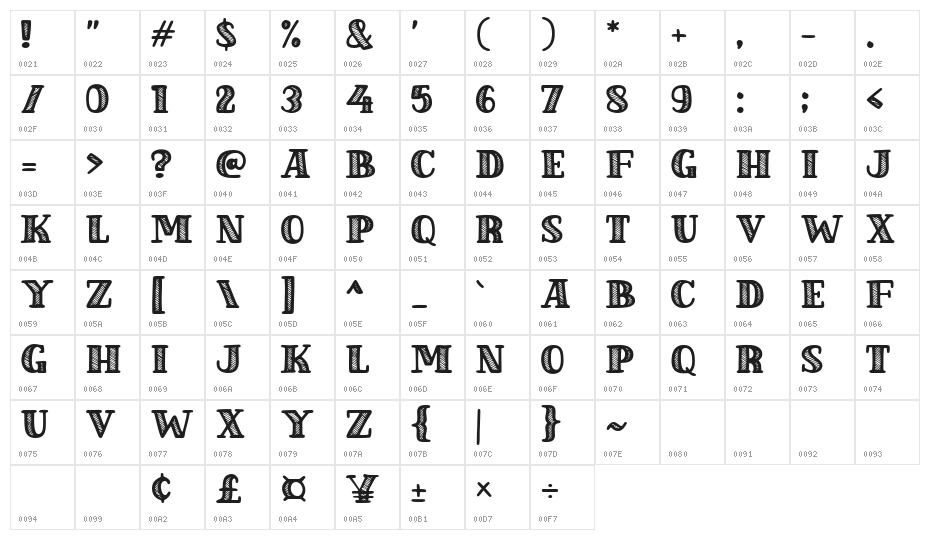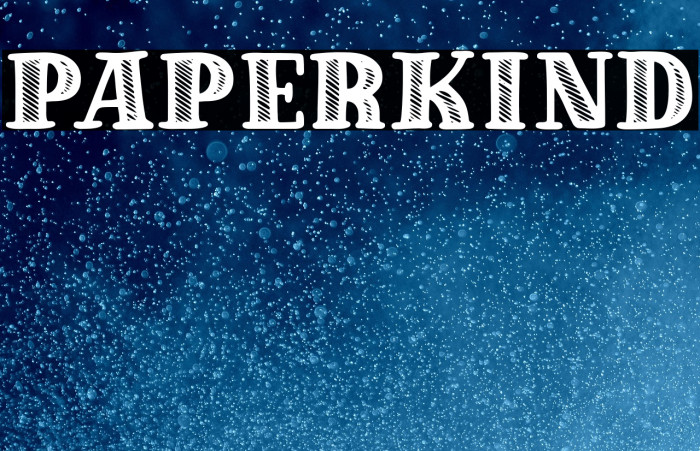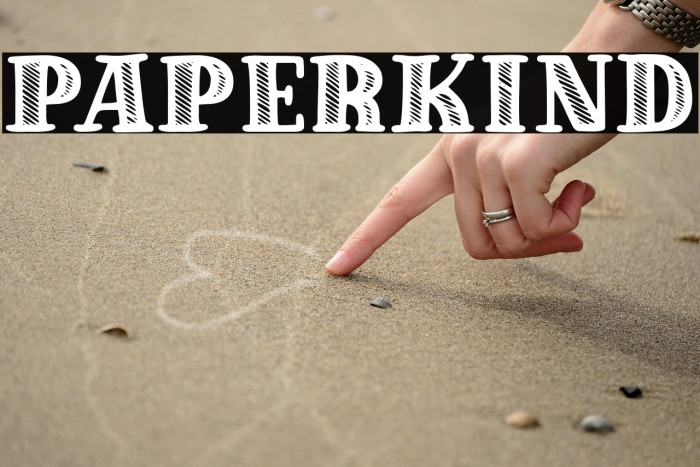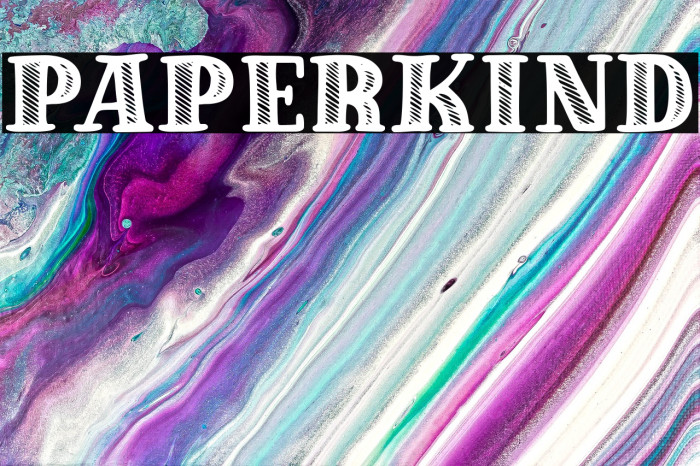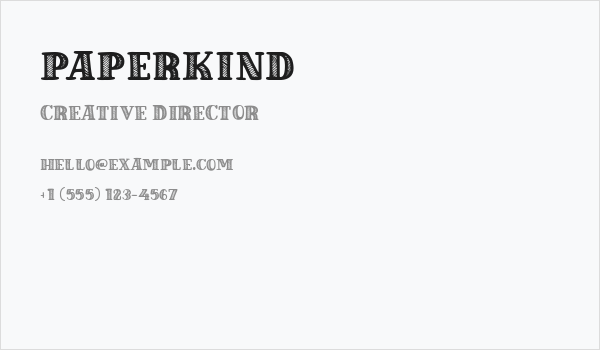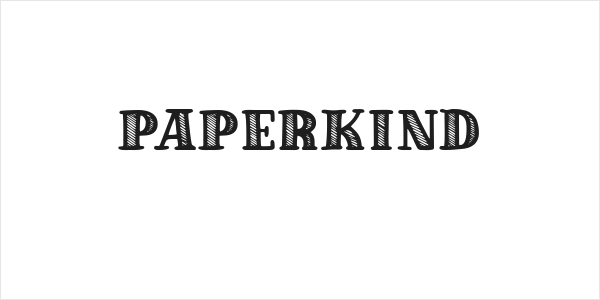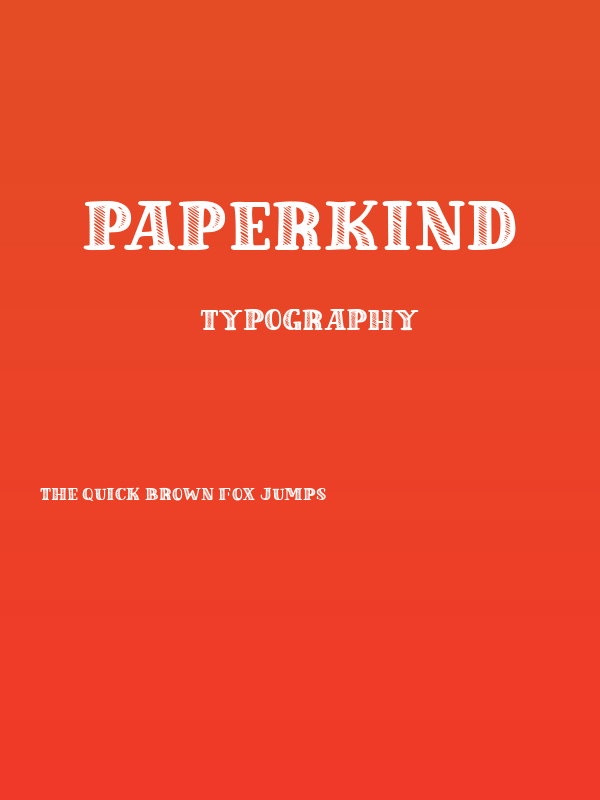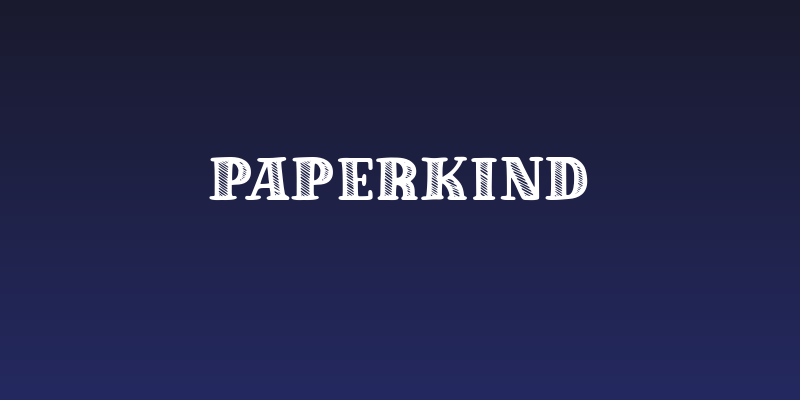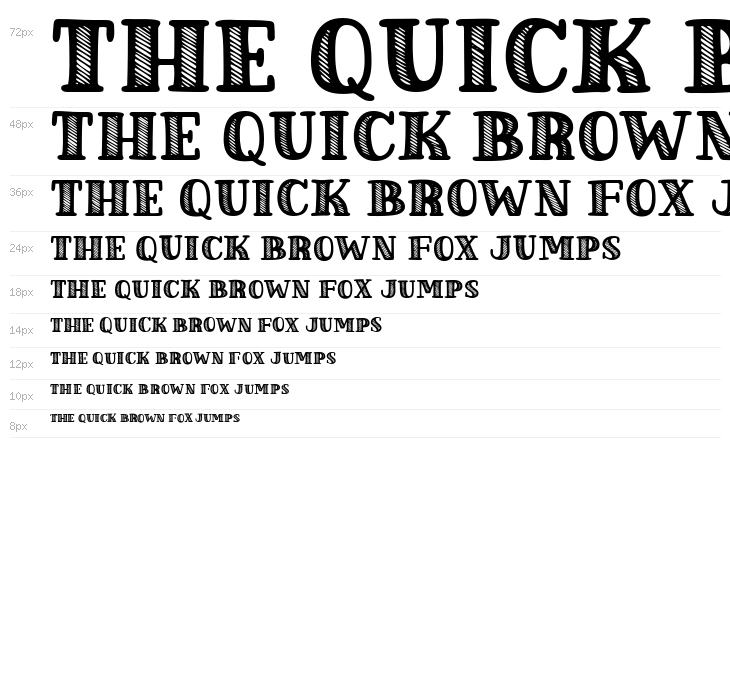
Paperkind Font
Paperkind Description
This font features a bold and decorative style with a distinct hand-drawn appearance. Each character is filled with diagonal lines, giving it a textured, sketch-like effect. The uppercase and lowercase letters maintain a consistent style, with the uppercase being slightly larger and more prominent. The numbers and special characters follow the same design, ensuring uniformity across all glyphs. The overall look is playful yet structured, making it suitable for creative and eye-catching designs.